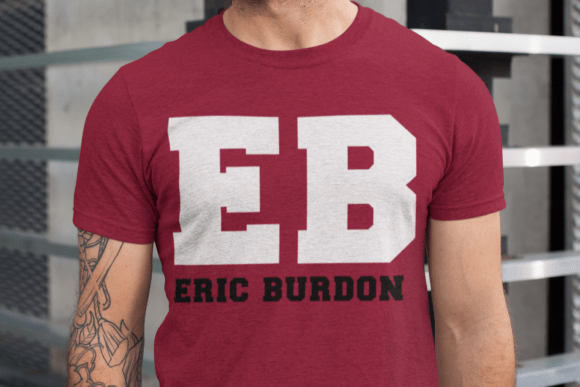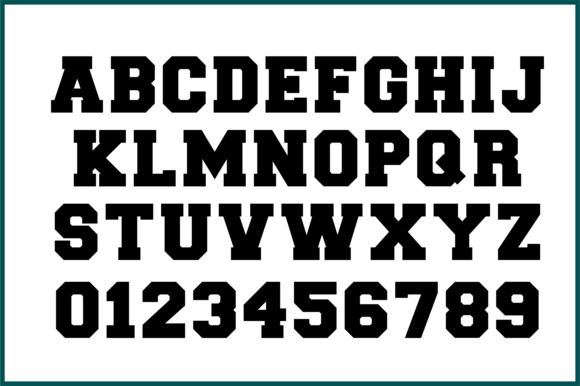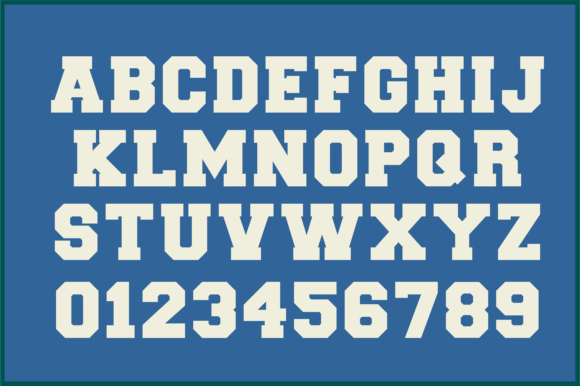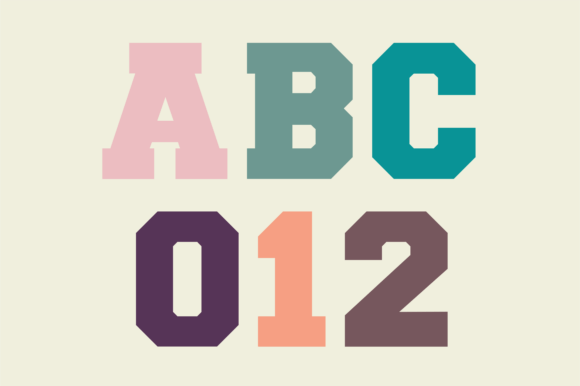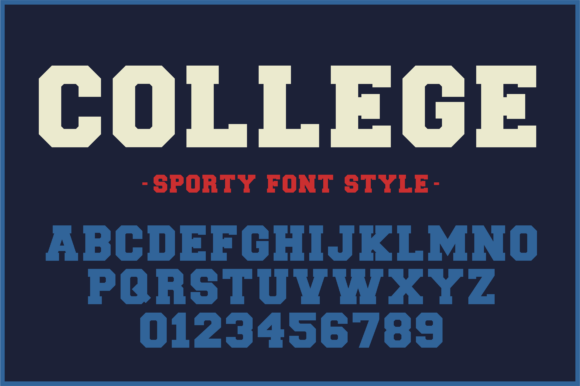
Introducing College Font: The Ultimate Choice for Sports-Themed Designs
Are you a designer or crafter looking for a font that embodies the spirit of athleticism and competition? Look no further than the College Font, a classic athletic typeface that exudes strength, confidence, and a sense of collegiate pride. With its strong shapes and clean geometry, this font is perfect for creating a wide range of sports-themed designs, from team logos and merchandise to posters, banners, and event materials.
The Characteristics of College Font
The College Font is distinguished by its sharp lines, confident style, and bold aesthetic. Its clean geometry and strong shapes give it a modern and dynamic feel, making it an excellent choice for designers who want to create a lasting impression. The font’s athletic look and feel make it perfect for sports teams, fitness brands, and event organizers who want to convey a sense of energy, competition, and teamwork.
One of the standout features of the College Font is its versatility. Whether you’re designing a logo for a sports team, creating merchandise for a fitness brand, or promoting an athletic event, this font can adapt to any style or theme. Its confident and bold aesthetic makes it perfect for headlines, titles, and short phrases, while its clean lines and geometry ensure that it remains legible even at smaller sizes.
Perfect for Team Logos and Merch
For sports teams and fitness brands, having a strong and recognizable logo is essential for building brand identity and loyalty. The College Font is an excellent choice for team logos, as its bold and athletic aesthetic can help to convey a sense of strength, speed, and agility. Additionally, the font’s versatility makes it perfect for use on a wide range of merchandise, from t-shirts and hoodies to water bottles and hats.
Creating Eye-Catching Posters and Banners
When it comes to promoting athletic events or sports teams, eye-catching posters and banners are essential for grabbing attention and generating interest. The College Font is perfect for creating bold and dynamic posters and banners, as its strong shapes and clean geometry make it highly legible even from a distance. Whether you’re promoting a high school sports tournament or a professional athletic event, this font can help to create a lasting impression.
Tips for Using College Font
To get the most out of the College Font, here are a few tips to keep in mind:
- Use it for headlines and titles: The College Font is perfect for creating bold and attention-grabbing headlines and titles. Its strong shapes and clean geometry make it highly legible, even at larger sizes.
- Pair it with complementary fonts: To add contrast and visual interest to your design, try pairing the College Font with complementary fonts that have a softer or more rounded aesthetic.
- Experiment with colors: The College Font works well with a wide range of colors, from bold and bright hues to more muted and neutral tones. Experiment with different color combinations to find the one that works best for your design.
In conclusion, the College Font is a versatile and dynamic typeface that’s perfect for creating a wide range of sports-themed designs. Its strong shapes, clean geometry, and confident style make it an excellent choice for team logos, merchandise, posters, banners, and event materials. Whether you’re a designer or crafter, this font is sure to become a staple in your toolkit. So why wait? Download the College Font today and start creating bold and dynamic designs that capture the spirit of athleticism and competition.